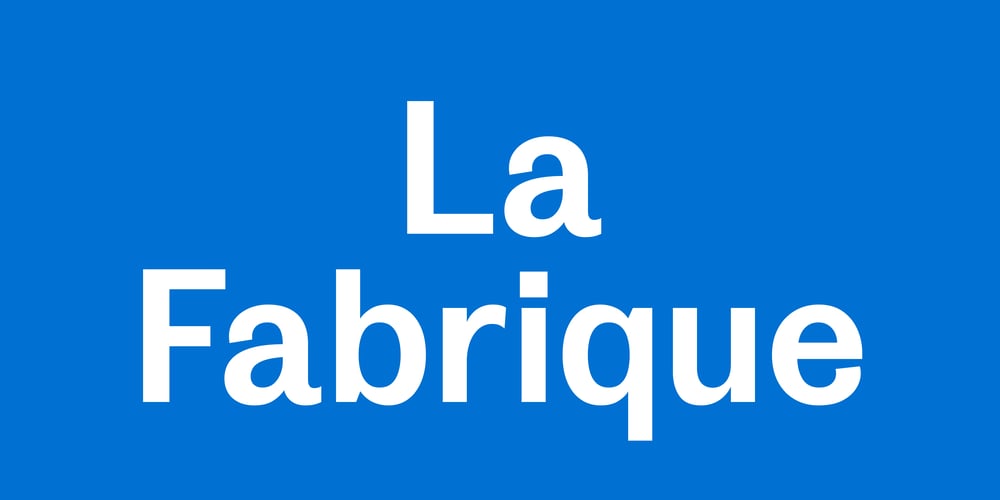
La Fabrique Font Family was designed by Colophon Foundry and published by Colophon Foundry. La Fabrique contains 10 styles and family package options. Alongside leading the type workshop and a lecture, Colophon Foundry were commissioned by the 23rd International Festival of Graphic Design in Chaumont, to be part of La Fabrique.The heavy sans-serif typeface ‘La Fabrique’ was created to coincide with this commission. The process of production for the typeface was separated in four distinct stages and documented via two mediums: a set of four A0 serigraph posters and a small 12-page specimen, used to visually document a normally ephemeral and invisible process. The result was shown at La Fabrique, Chaumont, France in 2012.The single-weight of La Fabrique was revisited in 2017 and extended into a family of five weights with corresponding Italics. It now also contains further language support for Extended Latin, Greek and Cyrillic, alongside further OpenType features and discretionary ligatures.